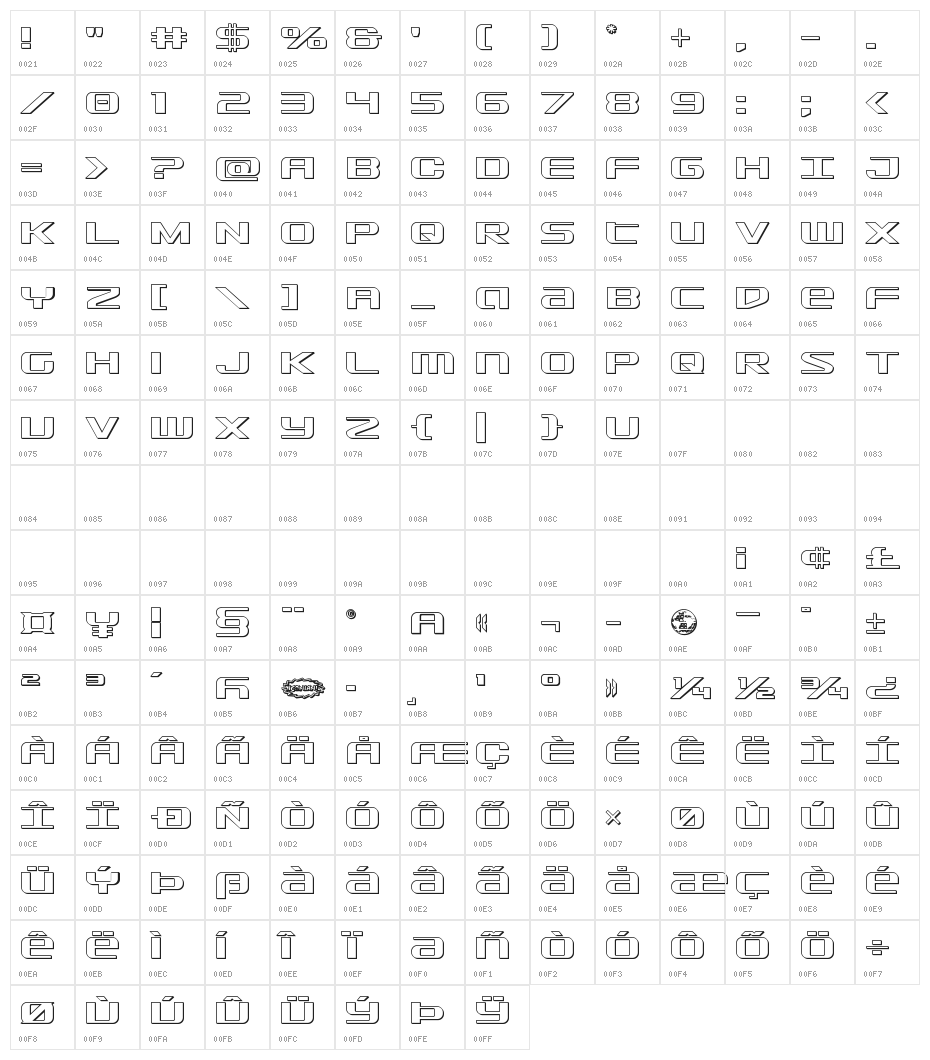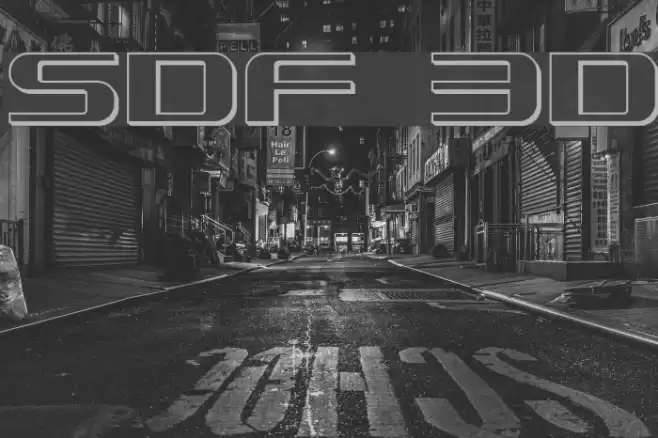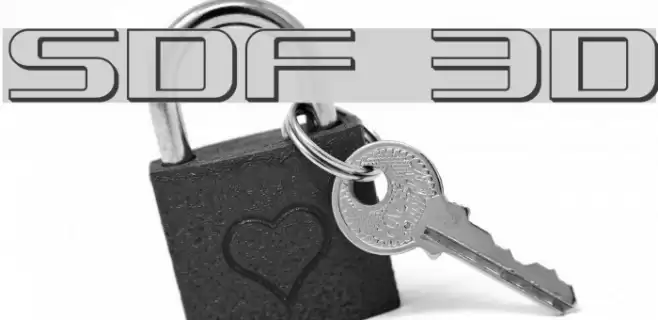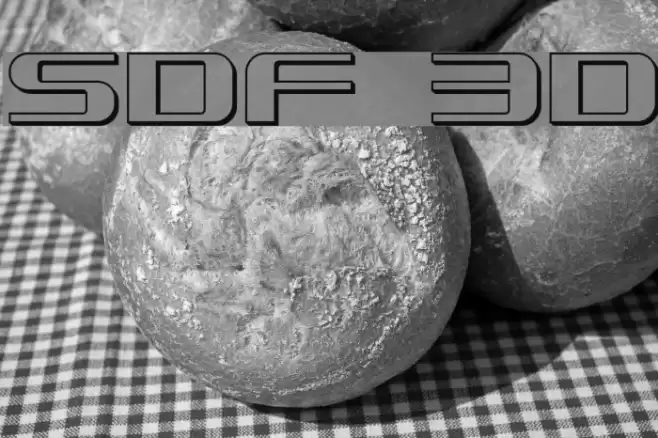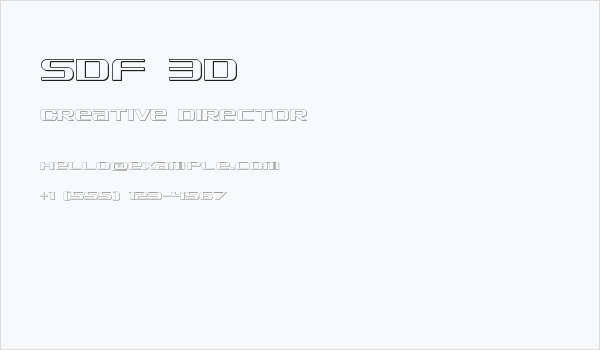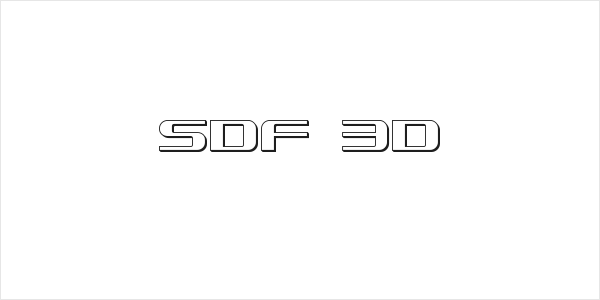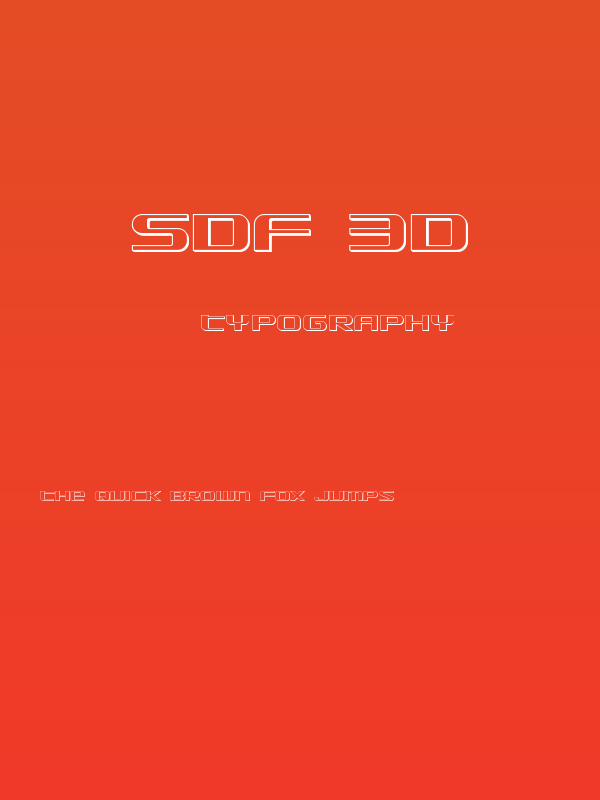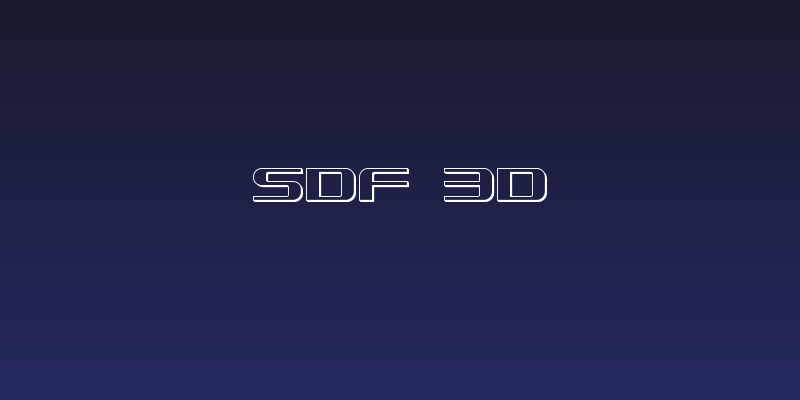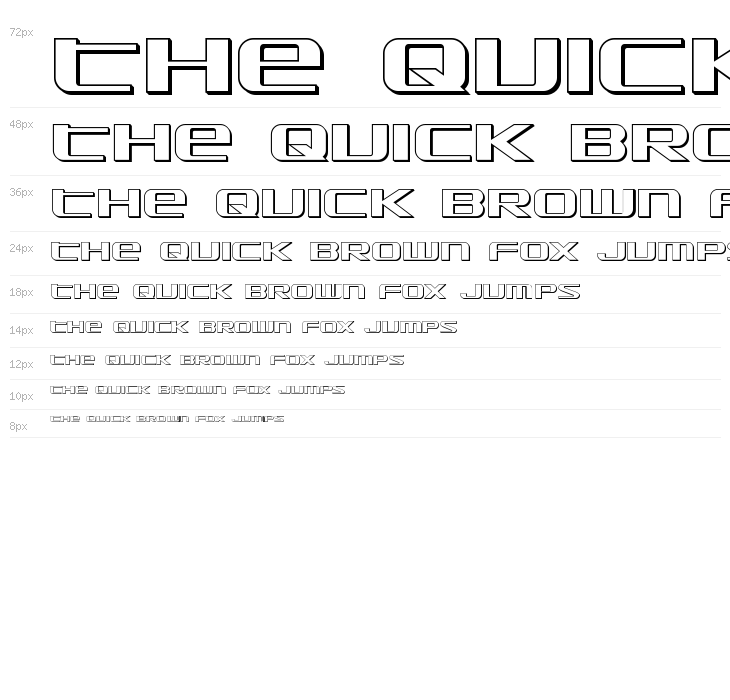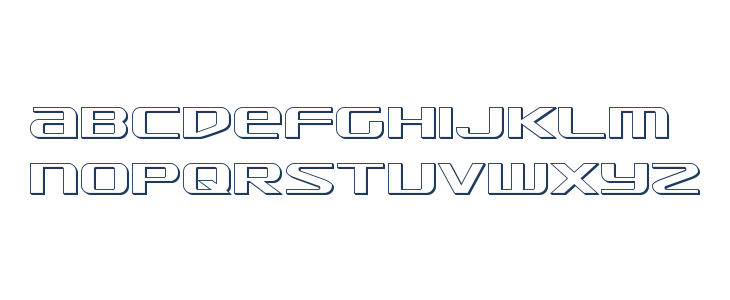
SDF 3D Font
SDF 3D Description
This font features a bold, geometric design with a three-dimensional effect, achieved through the use of parallel lines that create an illusion of depth. The characters are uppercase and lowercase letters, numerals, and a variety of special symbols. Each letter is constructed with a consistent line weight, giving it a uniform appearance. The style is modern and futuristic, making it suitable for projects that require a contemporary and cutting-edge look. The spacing between characters is normal, ensuring readability while maintaining the distinct style. The font's unique structure makes it ideal for attention-grabbing headlines and logos.